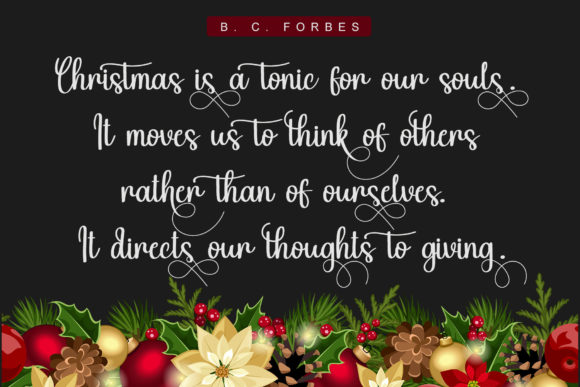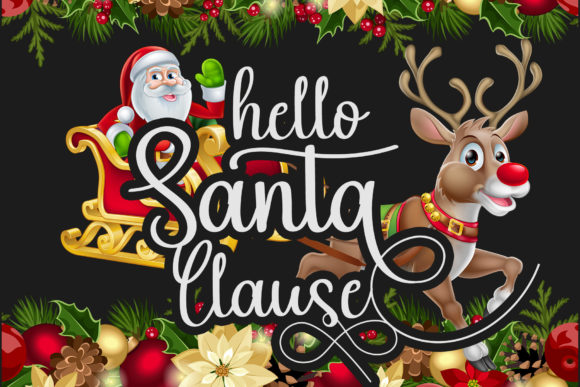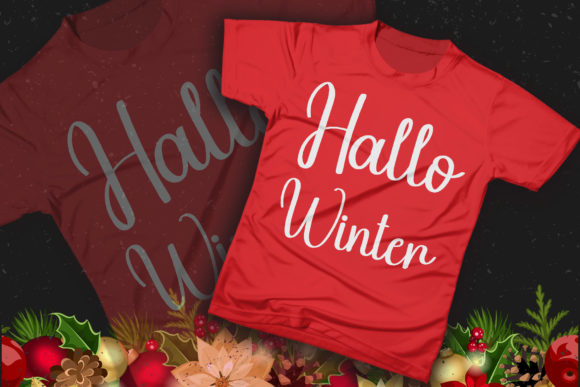
Witches Christmas Font
Witches Christmas is a beautiful and light handwritten font with a unique feel and a stunning impact. It will add a luxury spark to any design project that you wish to create! This font is PUA encoded which means you can access all glyphs and swashes with ease!